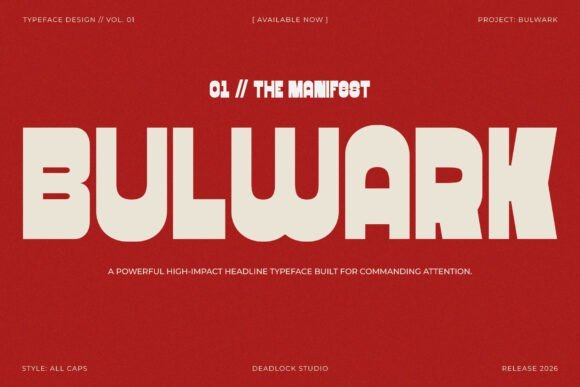
When Typography Meets Brutalism
The moment you’re staring at a blank canvas, waiting for inspiration to strike – that’s when the magic happens. You start to envision the perfect font, one that screams “attention” and demands to be noticed. For designers, finding the right font can be the difference between a great design and a mediocre one. That’s where the Bulwark Font comes in – a monolithic allcaps typeface built for maximum impact.
With its roots in brutalist architecture, the Bulwark Font delivers a solid, unyielding presence to any layout. Its Dual Case System offers distinct geometric variations between uppercase and lowercase characters, creating a unique visual rhythm that’s both industrial and stylish. Whether you’re crafting headlines, posters, branding materials, or industrial signage, the Bulwark Font is the perfect addition to your design arsenal.
Bulwark Font Key Features
- Unique Characteristics: Bulwark Font features a unique blend of modern and vintage elements, with a strong, bold design that makes it perfect for headlines and titles.
Bulwark Font Review
Overall, I’m impressed with the Bulwark Font’s industrial aesthetic and versatility. ✨ Its bold, rugged design makes it perfect for titles, headings, and even body text in certain contexts. The font’s geometric shapes and sharp lines evoke a sense of strength and reliability, making it suitable for a wide range of applications, from tech and engineering to architecture and design.
One of the things that stands out about Bulwark is its excellent legibility, even at smaller font sizes. The font’s clear, concise design ensures that the text remains readable, even when pushed to its limits. Additionally, the font’s support for multiple languages and its extensive character set make it a great choice for global projects.
- ⚠️ Limited expressive range: While Bulwark is excellent at conveying a sense of strength and industrialism, it may not be the best choice for projects that require a more emotive or creative tone.
- ⚠️ May not work well in complex layouts: Bulwark’s bold design can sometimes overwhelm more delicate elements, making it challenging to use in complex layouts or compositions.
In conclusion, Bulwark is a solid, dependable font that’s perfect for projects that require a strong, industrial aesthetic. While it may not be the most expressive or versatile font, it’s an excellent choice for a wide range of applications, and its legibility and language support make it a great value for designers and developers alike.
Tips for Getting the Most Out of Bulwark Font
For best results, use Bulwark Font in headings and titles to create a strong visual impact. Experiment with different font sizes and styles to create contrast and emphasis. You can also pair Bulwark Font with other fonts to create a unique and visually appealing combination.
Bulwark Font is ideal for use in logos, headings, and titles. It’s also suitable for use in posters, flyers, and other marketing materials where a bold and eye-catching font is needed.